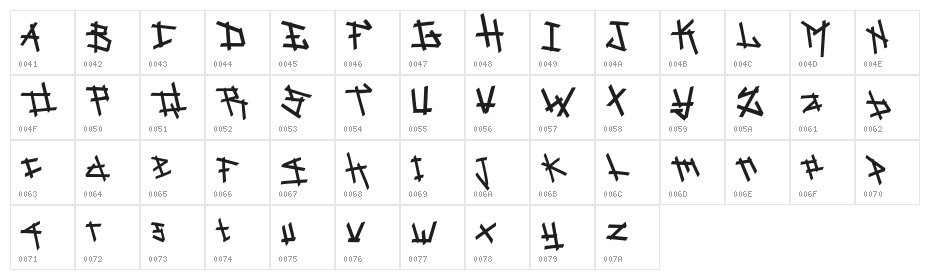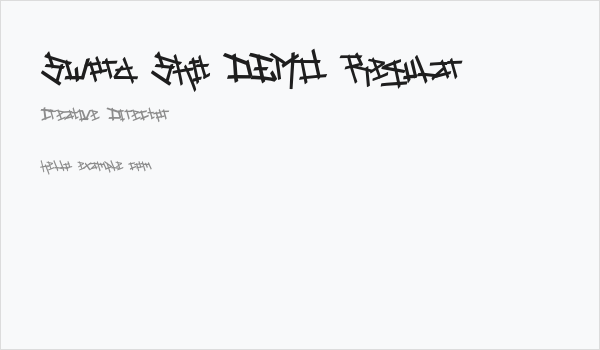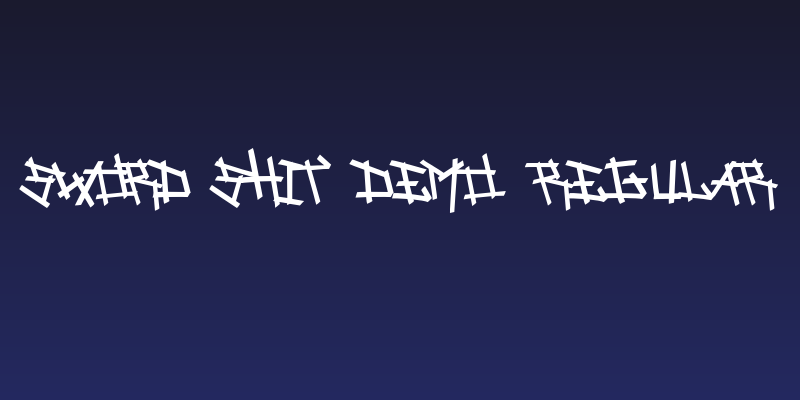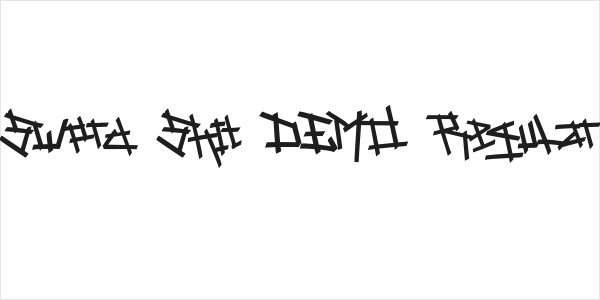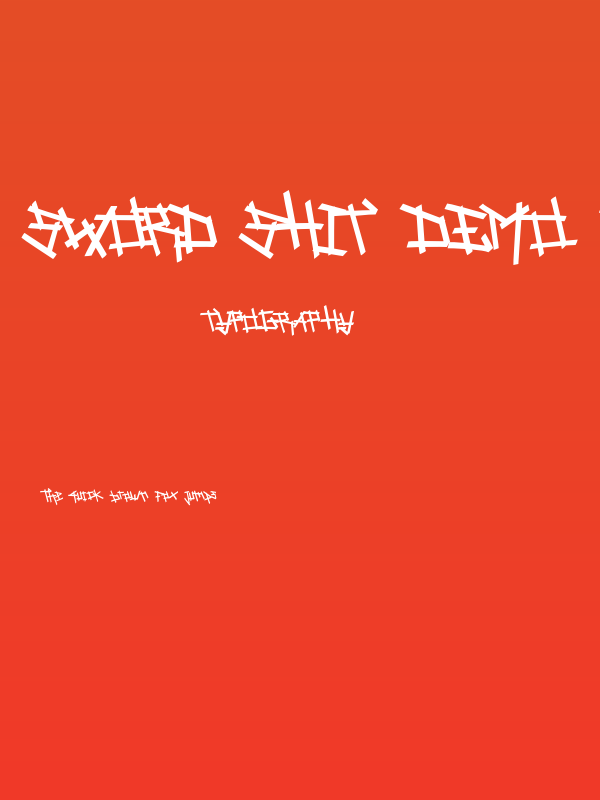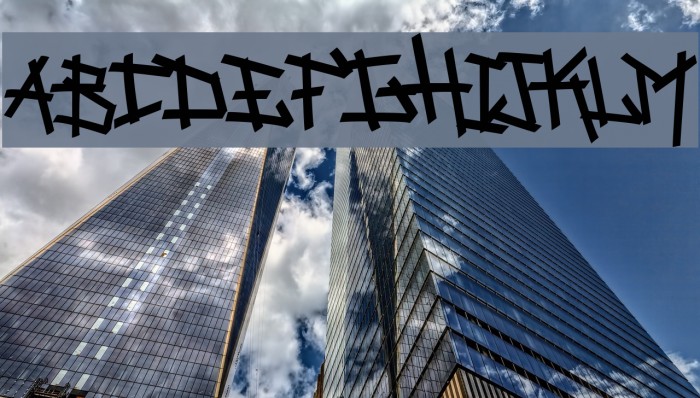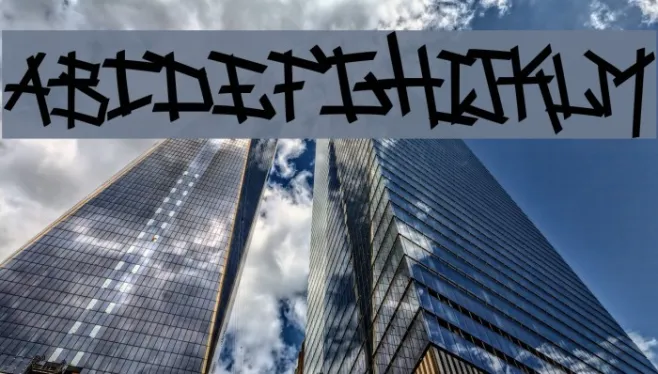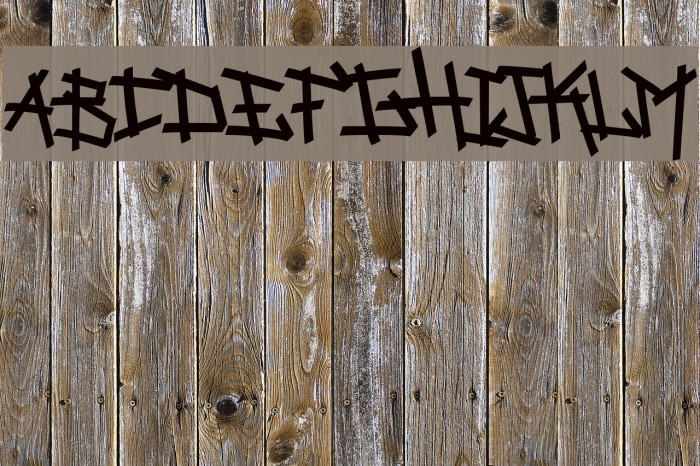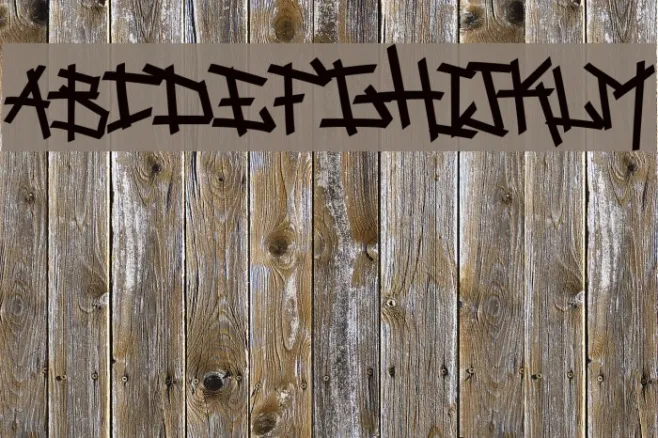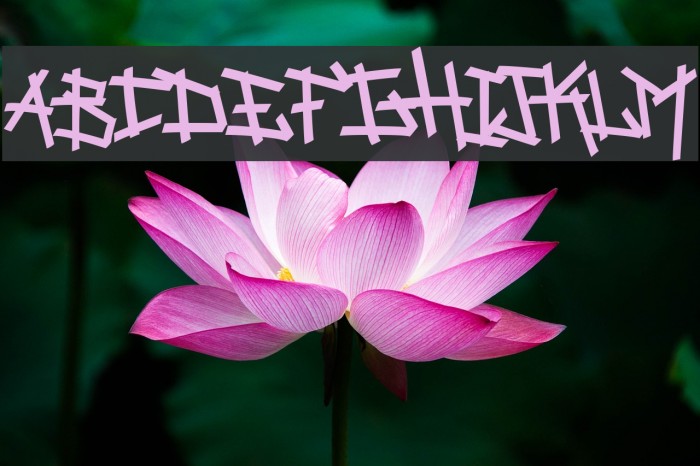
Sword Shit DEMO Regular Font
Sword Shit DEMO Regular Description
This font features a highly stylized, graffiti-inspired design with sharp, angular lines and a bold presence. Each character is constructed with overlapping strokes that mimic the appearance of swords or blades, giving it a dynamic and edgy look. The letters are interconnected with a sense of movement and aggression, making it ideal for projects that require a rebellious or urban aesthetic. The uppercase and lowercase letters maintain a consistent style, while the numbers and special characters follow the same thematic design, ensuring uniformity across all text elements.
| Overall Style | Modern, Urban |
| Proposed Projects | Ideal for street art designs, music album covers, edgy branding, and urban-themed posters. |